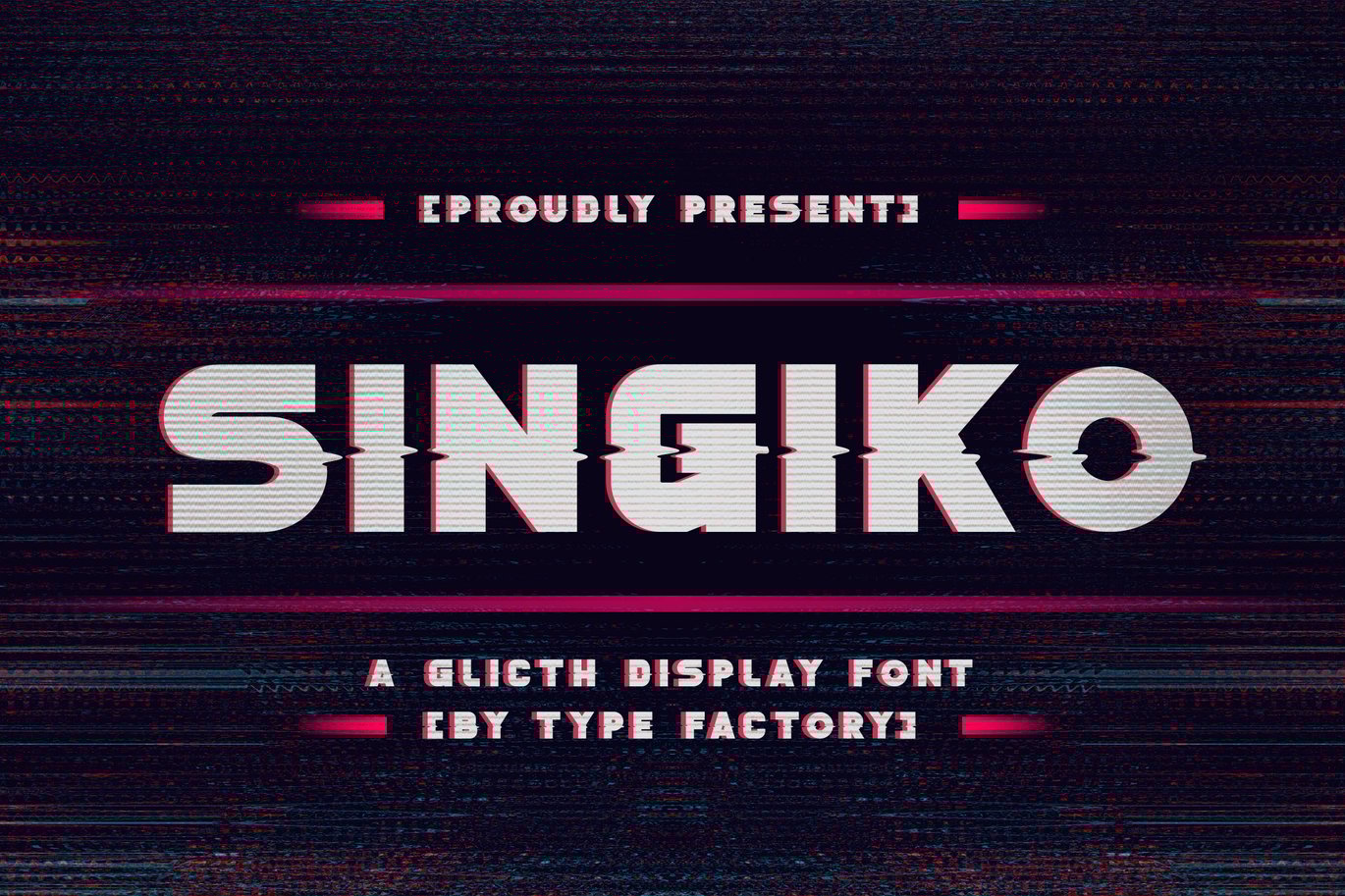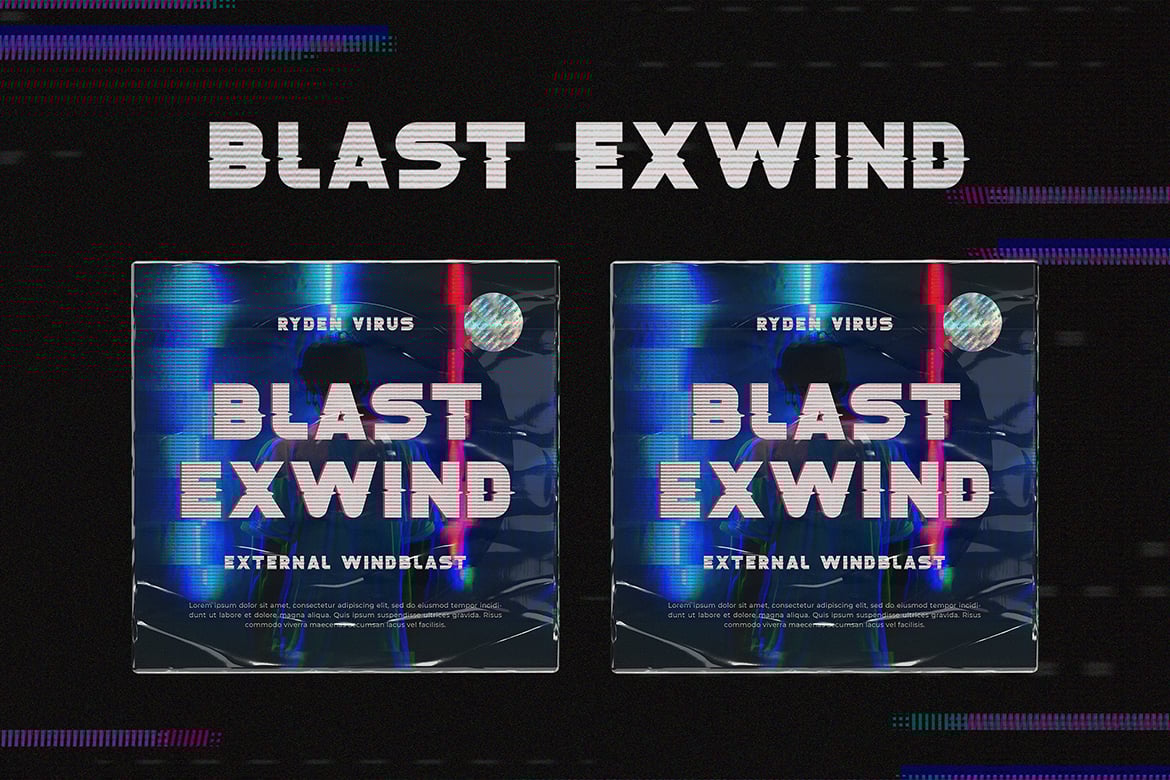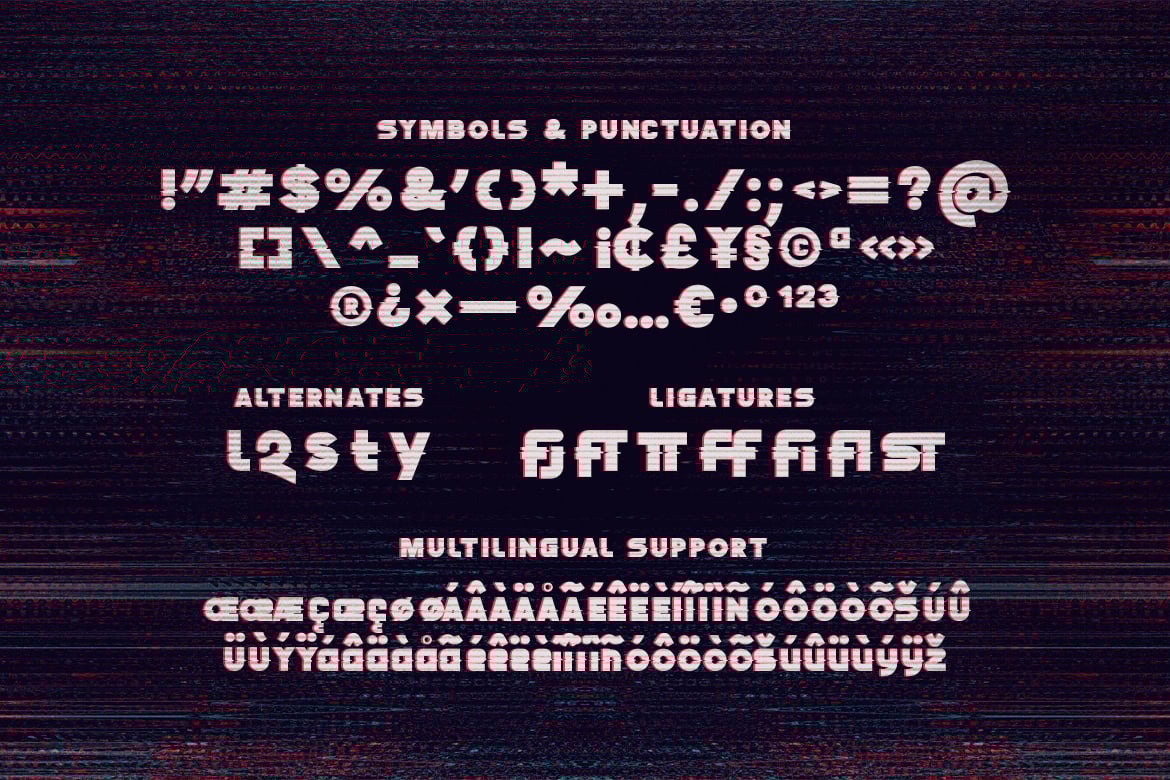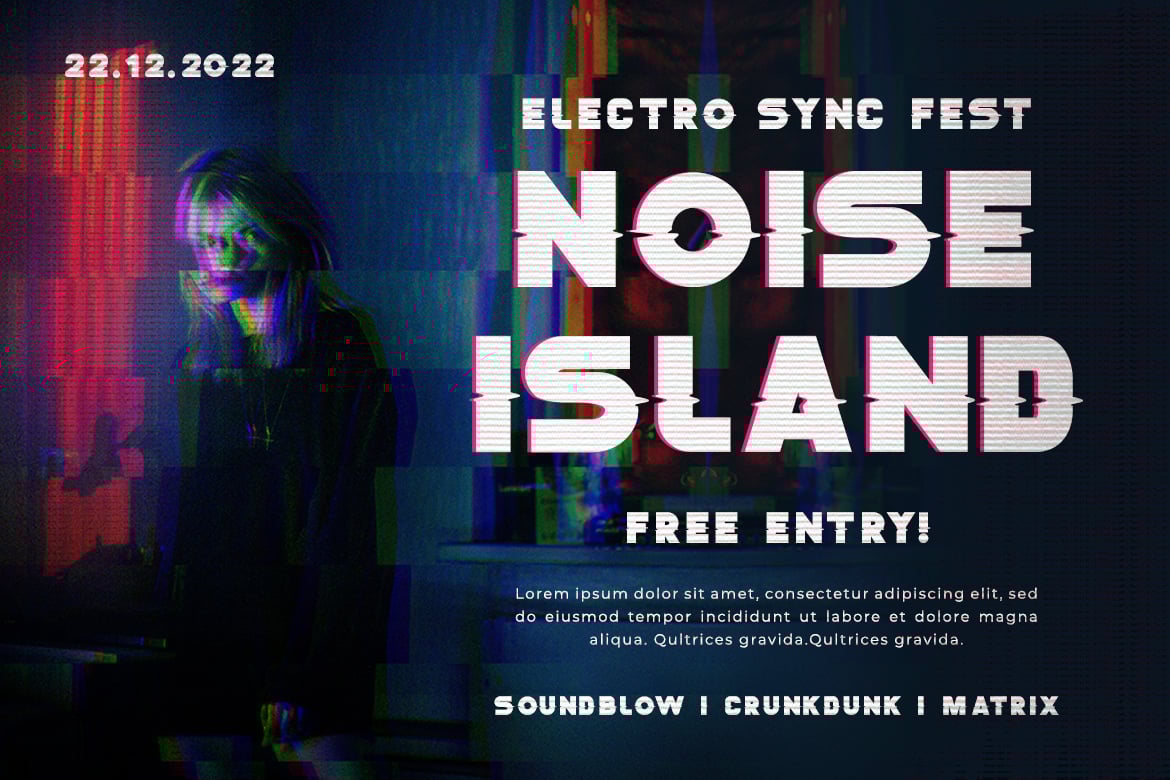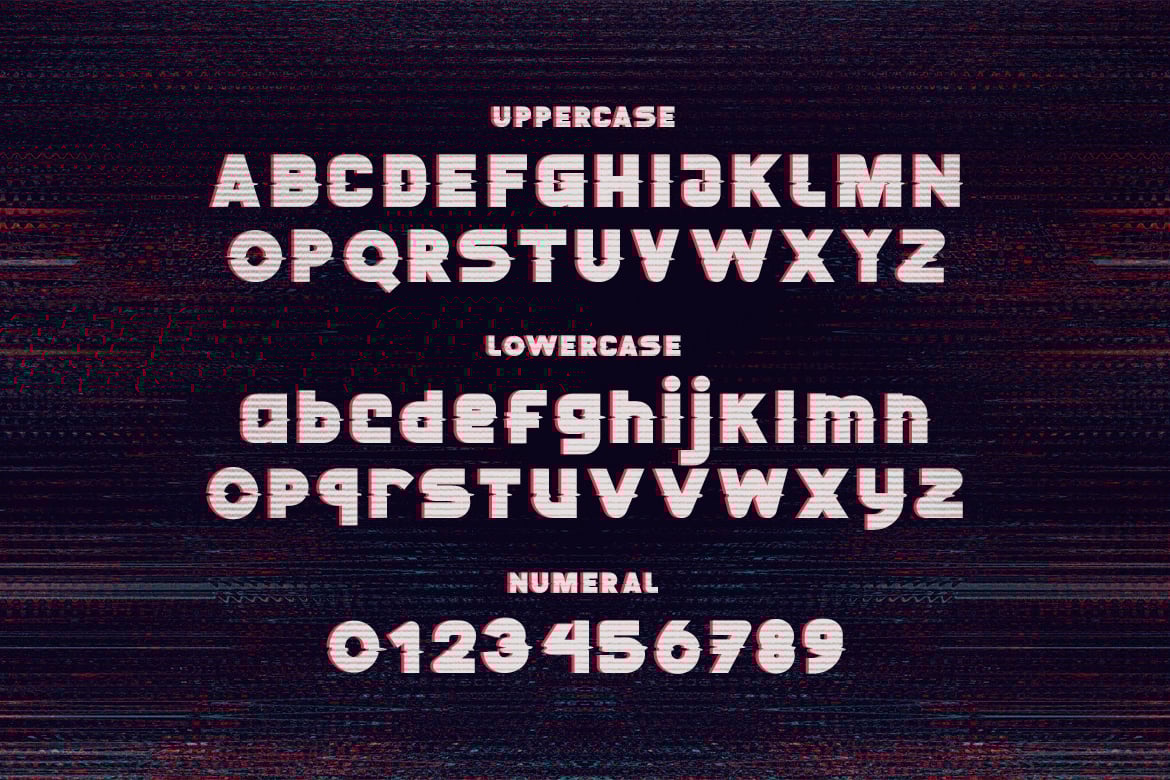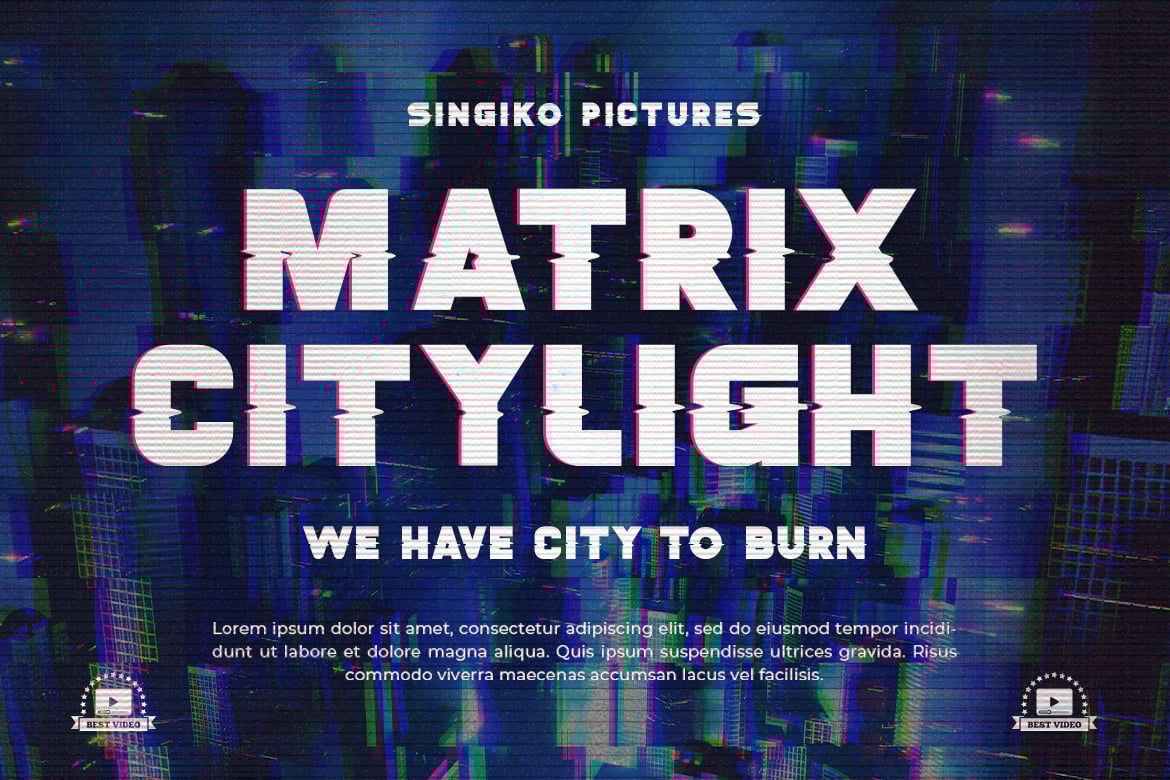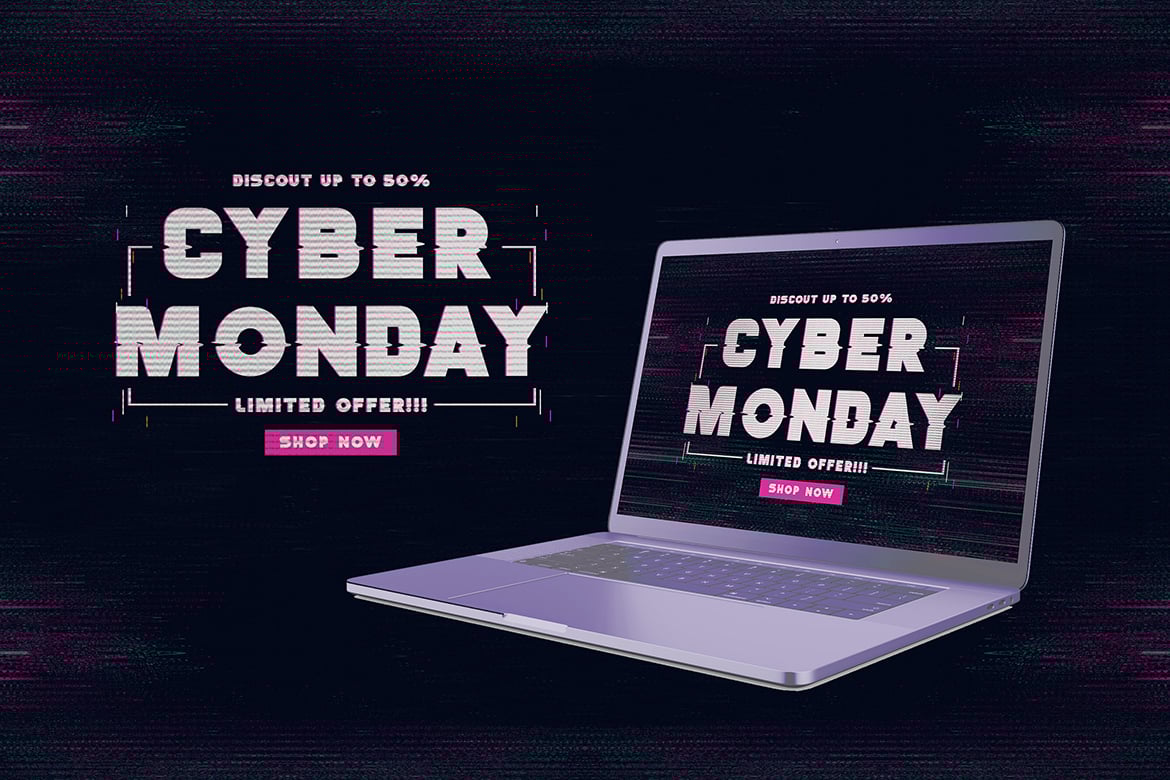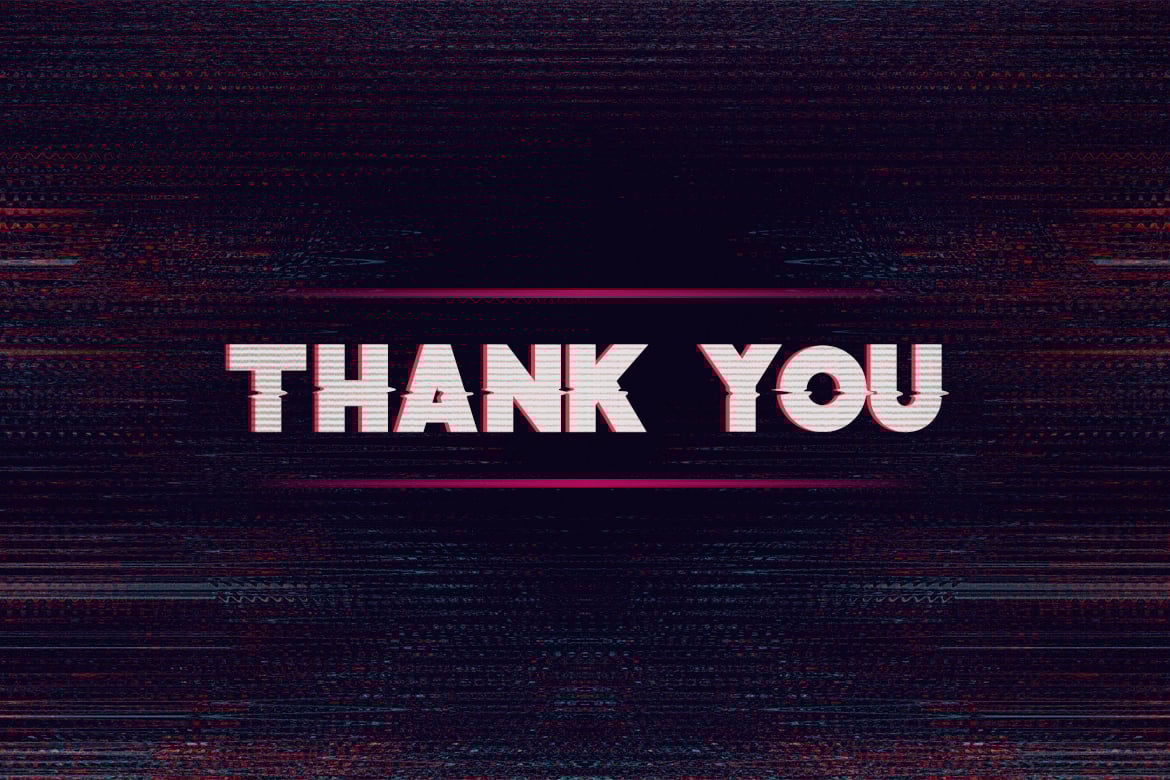
Singiko – A Glitch Display Font
Singiko is an eccentric typeface designed to illustrate an artistic and modern digital glitching effect.
Considered to be an old art form that has some black history to its origins, this typeface has been widely used to represent flaws or errors on any digital image through its glitch effects.
Today, it is greatly signified as an icon and a tool for most artists.
A font that is perfect for your artworks or websites to give it a contemporary ambiance and style.
This font is perfect for impressive branding, stunning design, games title design or practically anything you can think of!